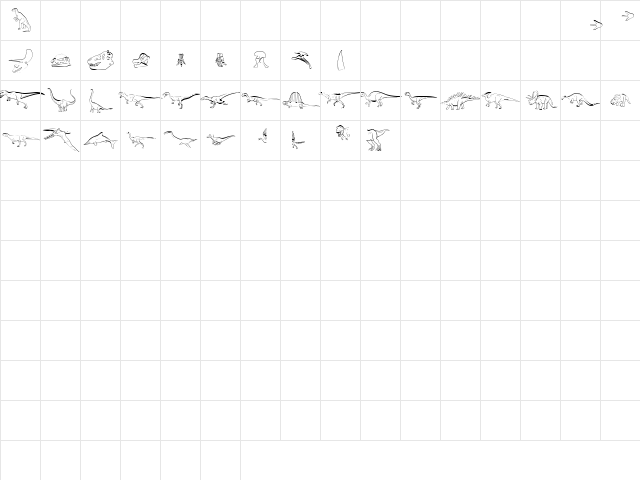
Complete P22 Dinosaur Outline glyph index. Displaying only characters natively supported by P22 Dinosaur Outline font.
P22 Dinosaur Outline is built around its visual character rather than neutral utility - its distinctive forms are designed to make an impression at display sizes.
Font Pairing: Pair with a clean neutral sans-serif for body copy to let P22 Dinosaur Outline's character lead without overwhelming the composition.
Pro Tip: Use P22 Dinosaur Outline exclusively at display sizes - it was designed to be seen, not read at length. Let a neutral companion handle body copy.